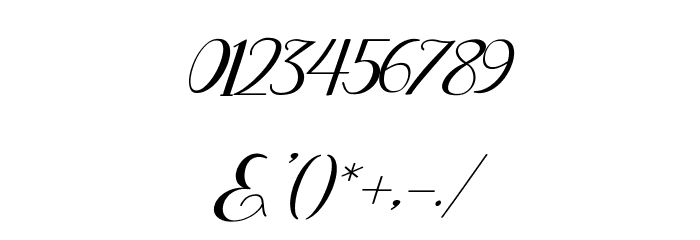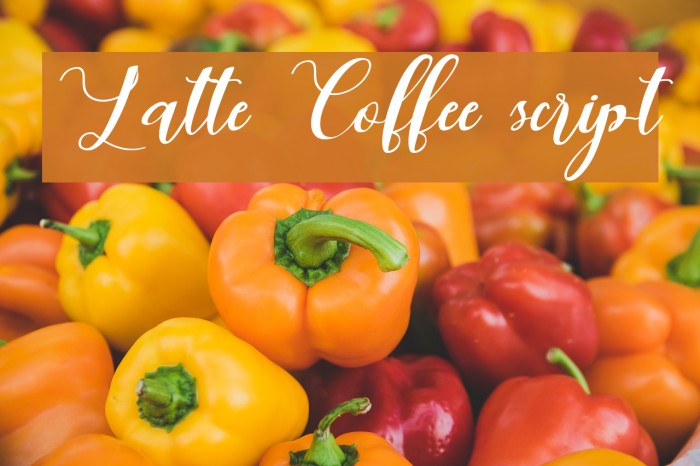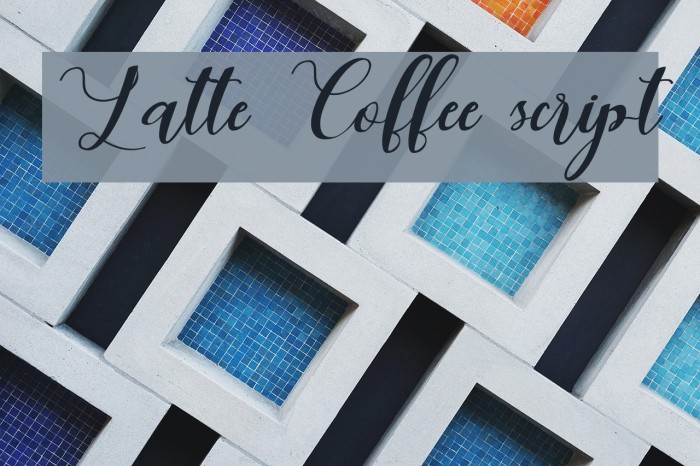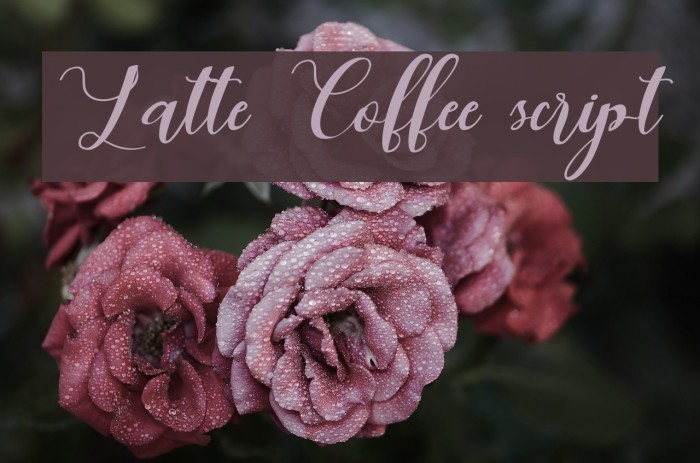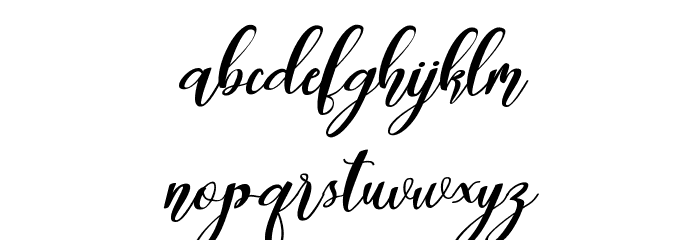
Latte Coffee script Font
Latte Coffee script Description
This elegant script font features a flowing, cursive style with high contrast between thick and thin strokes. The uppercase letters are adorned with graceful swashes, adding a touch of sophistication and flair. The lowercase letters maintain a smooth, connected appearance, ideal for creating a seamless, handwritten look. The numerals and special characters are designed with the same attention to detail, ensuring consistency throughout the typeface. This font exudes a sense of elegance and refinement, making it suitable for projects that require a personal and artistic touch.
| Overall Style | Elegant, Artistic |
| Use Case | Logos, Invitations, Decorative text |
| Proposed Projects | Ideal for wedding invitations, greeting cards, branding, and elegant packaging. |